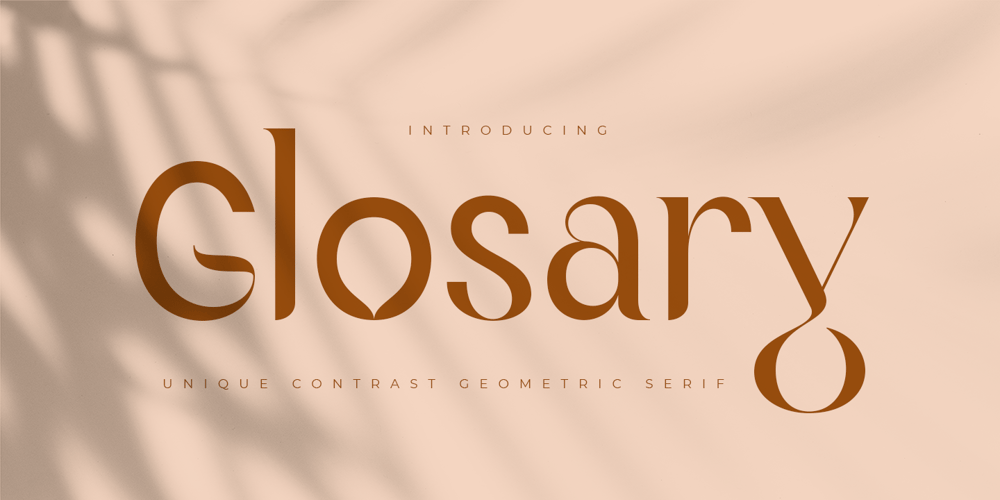
Glosary Font Family was designed by Zamroni Hamzah and published by Sensatype Studio. Glosary contains 1 styles and family package options. New Unique font that we created special for modern projects with extra ligature in unique shape will be ready to add value of your brand. It so nice to leverage designer or product owner that need solutions to make their design look more elegant and luxury. And specially for Glosary font, We prepared any ligatures characters to help you create unlimited variations for your creative needs.Glosary Unique Contrast serif font ready with: Any options to get creative variations (combination of Ligatures) Preview as a inspirations that you can do with Glosary font Ready with Lowercase and Uppercase characters Wish you enjoy our font. ๐